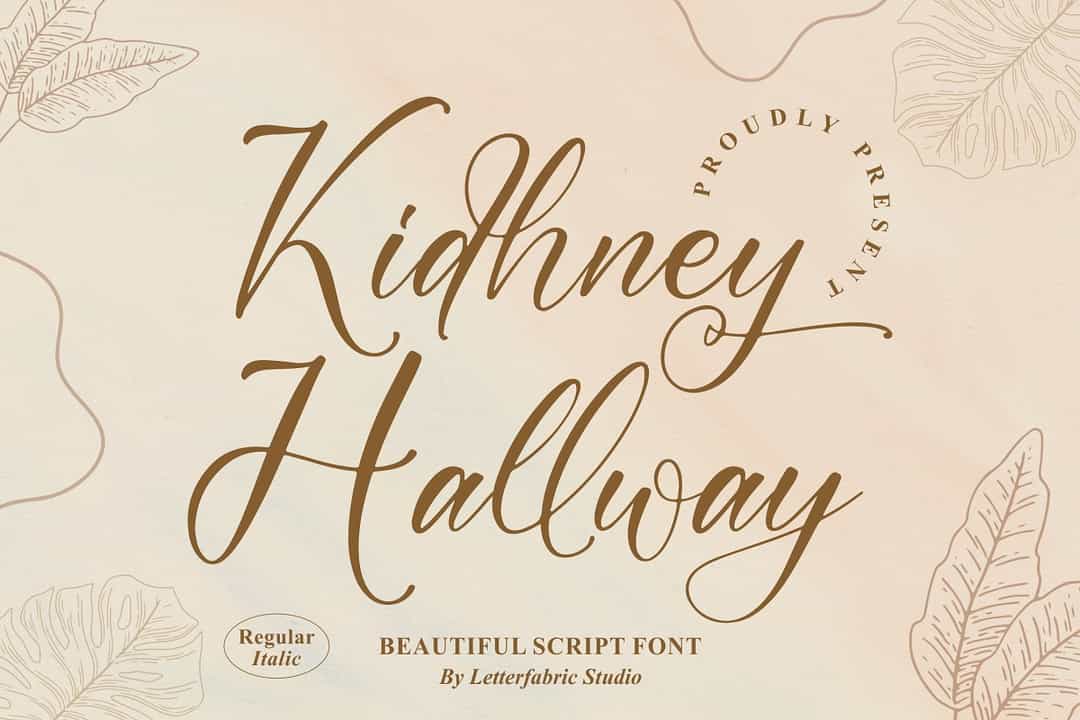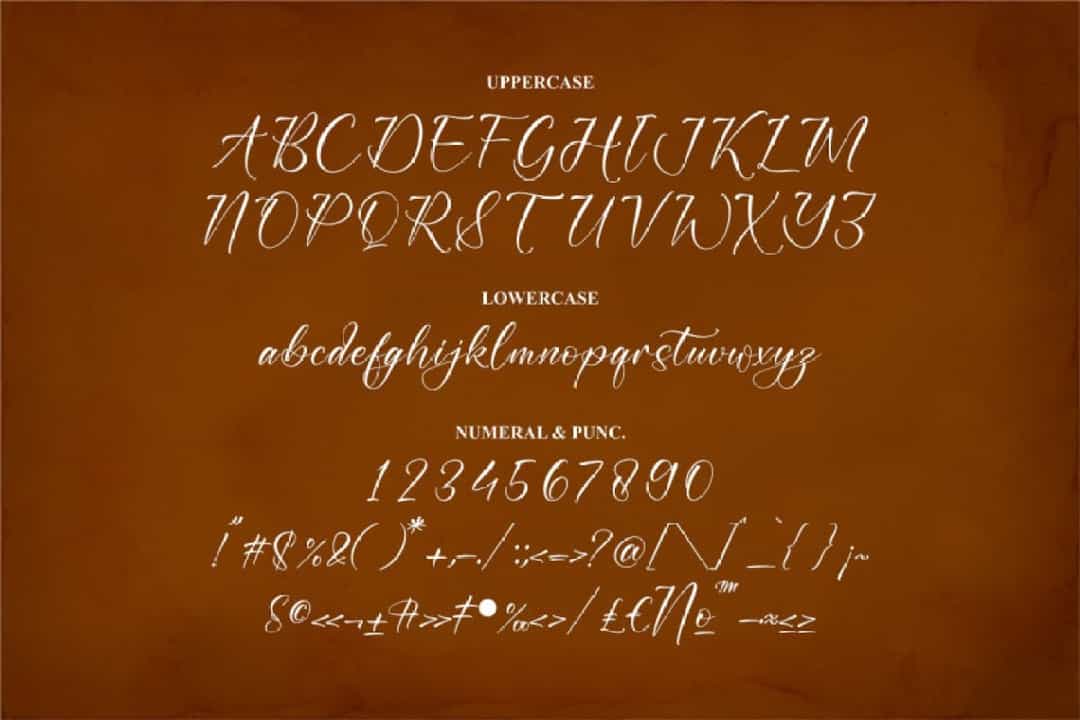
Kidhney Hallway is an eye-catching script font with modern aesthetic. Perfect for use in logos, branding projects and homeware designs like packaging as well as homeware mugs quotes posters etc – its PUA coded character ensures access to its exquisite symbols and ligatures quickly!